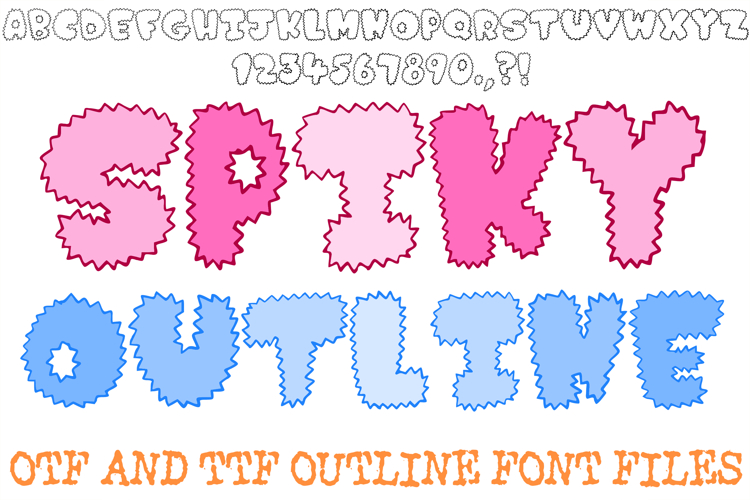
Spiky Outline Alphabet Lettering Font Punk Prickly ABC OTF
Bring a burst of energetic, spiky fun to your creative projects with the Spiky Outline Font. This highly distinctive display typeface features chunky, rounded bubble characters defined by a playful, jagged outline. Mimicking static electricity, prickly cacti, fluffy monsters, or punk-rock zig-zags, this alphabet delivers an eye-catching, high-impact aesthetic. It is an exceptional choice for headlines, logos, and craft designs that require a bold, rebellious, or delightfully quirky look.
Ideal For Creative Merch & DIY
Custom Merchandise: Design energetic typography layouts for kids' apparel, graphic streetwear t-shirts, canvas tote bags, and cozy screen-printed hoodies.
Die-Cut Stickers: Create cool, high-contrast vinyl decals for laptops, water bottles, skateboards, and planners.
Theme Stationery: Perfect for edgy Halloween flyers, retro gaming posters, birthday party invitations, or quirky greeting cards.
Artisan Branding: Elevate logos, business cards, and packaging for independent toy brands, tattoo studios, clothing labels, or creative design agencies.